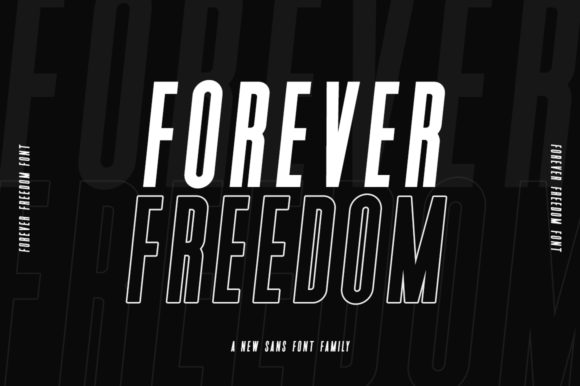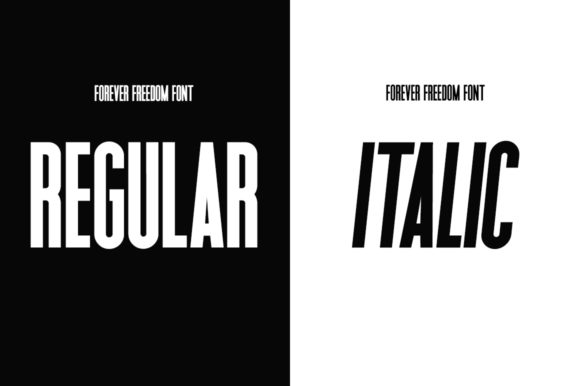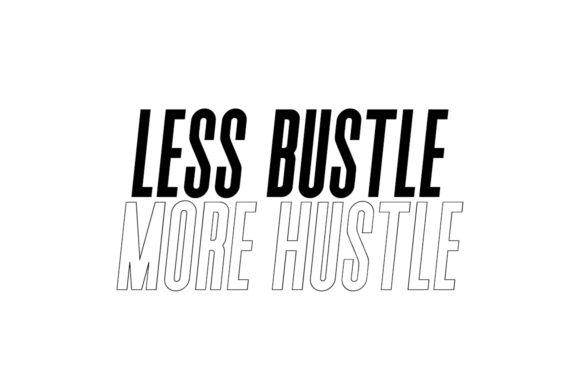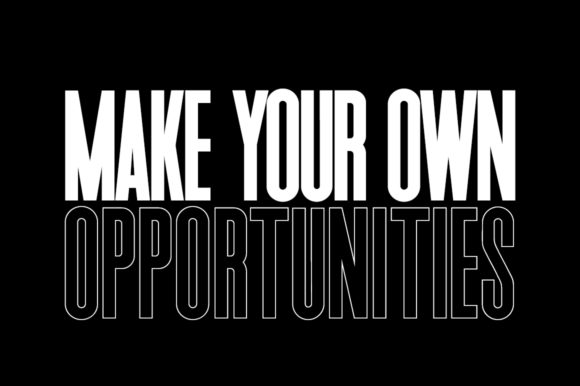
Forever Freedom Font
About the Forever Freedom Font
Let us introduce you to Forever Freedom Font, where timeless design meets modern craftsmanship. Forever Freedom is a bold and strikingly modern font including four awesome styles that combine perfectly together. The regular, italic and outline versions are a wonderful way to spice up your design cohesively.
Forever Freedom’s bold, modern aesthetic makes it ideal for headlines, branding applications, and posters where a strong visual impact is desired. It also works well for short, impactful phrases on packaging. However, its weight and strong character make it less suitable for body text or UI elements requiring high readability in smaller sizes or lengthy paragraphs.
The outlined version adds a unique touch to logos and icons. Consider pairing it with a clean sans-serif like Open Sans for a balanced, contemporary look, or a classic serif such as Garamond for a sophisticated contrast. For a more playful feel, a handwritten script font could complement its boldness.
Its overall personality is confident and energetic, conveying a sense of freedom and modern dynamism. Brands targeting a youthful, active audience or those emphasizing strength and innovation would find Forever Freedom a highly effective choice.